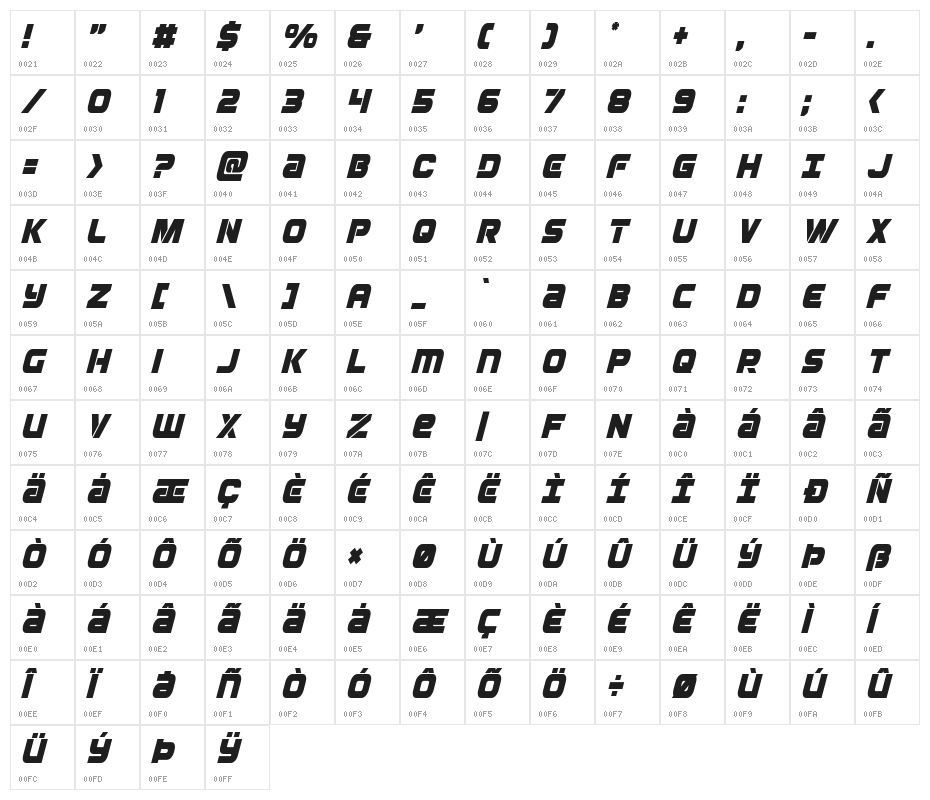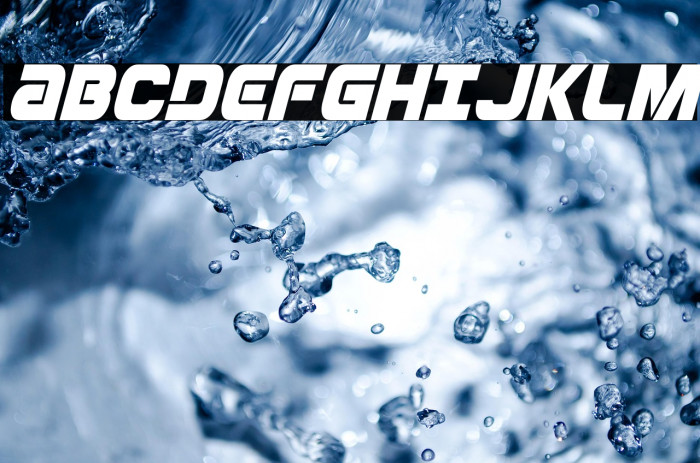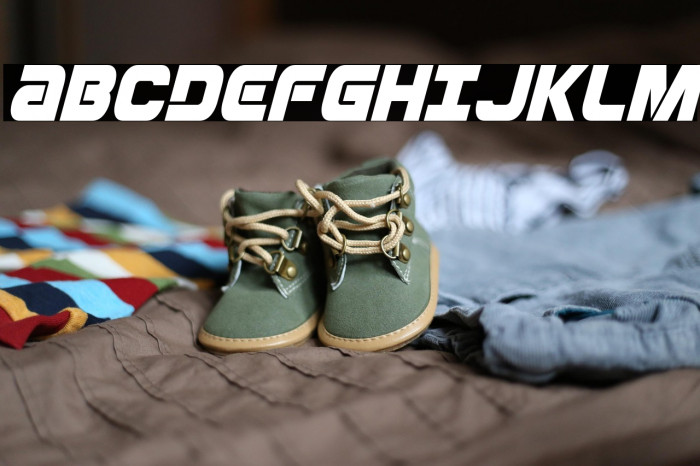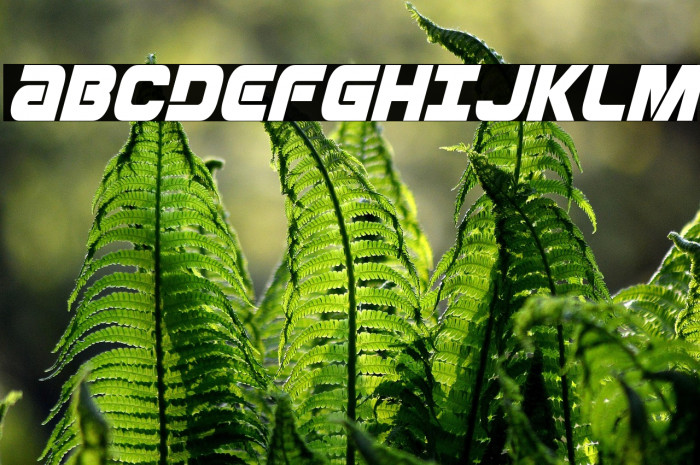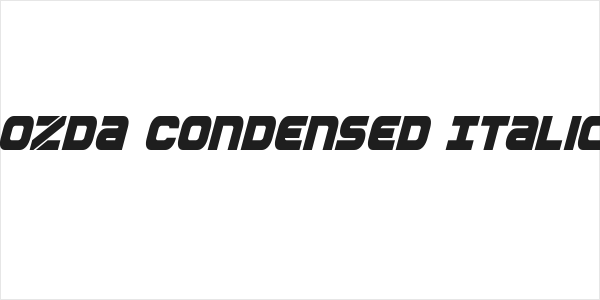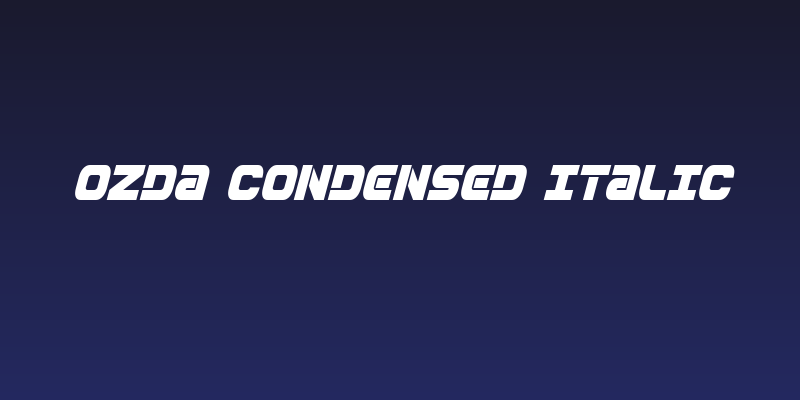
Ozda Condensed Italic Font
Ozda Condensed Italic Description
This font features a bold and dynamic style with a distinctly modern and futuristic appearance. The characters are condensed and italicized, giving them a sleek and streamlined look. The strokes are thick and consistent, providing a strong visual impact. The angular design of the letters adds a sense of movement and energy, making it suitable for projects that require a bold statement. The overall design is clean and uncluttered, with a focus on readability despite its decorative elements.